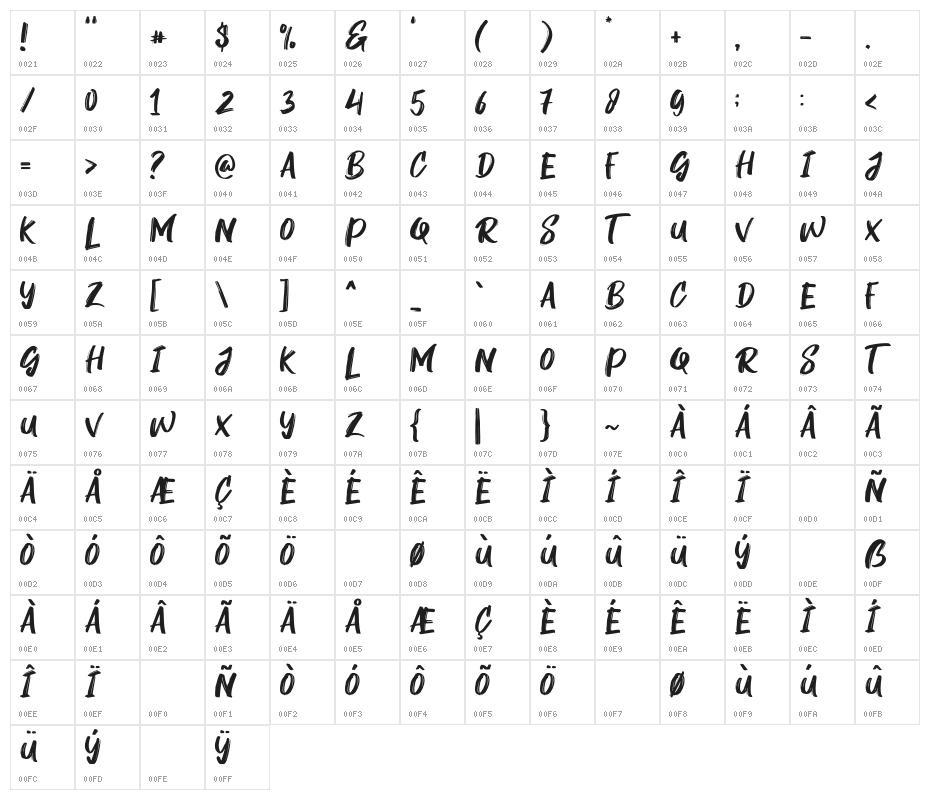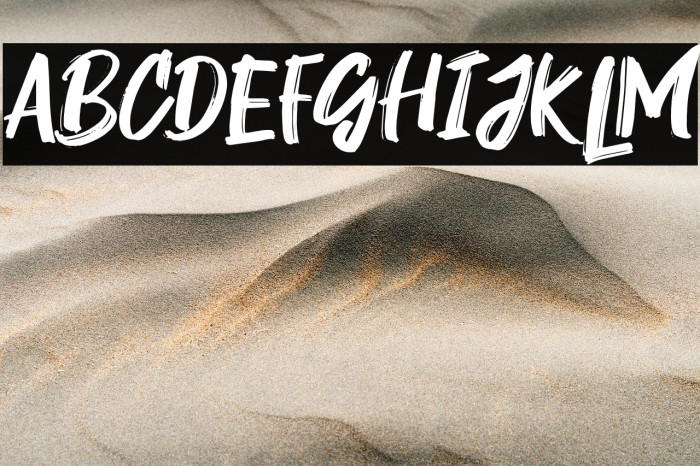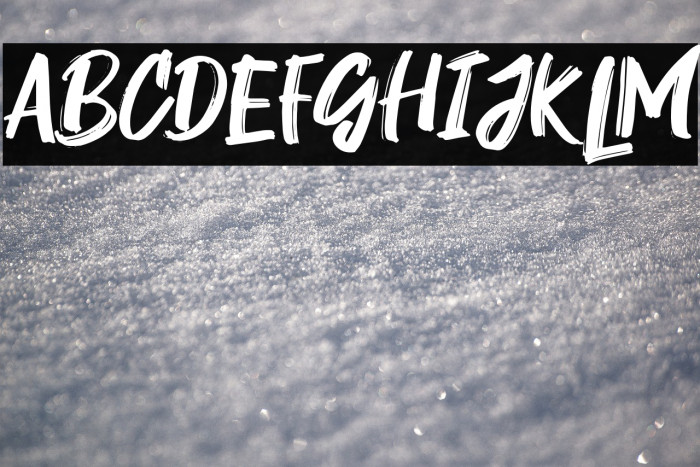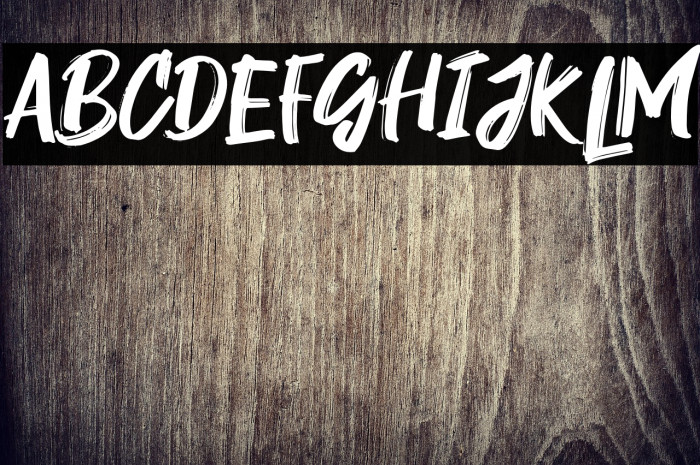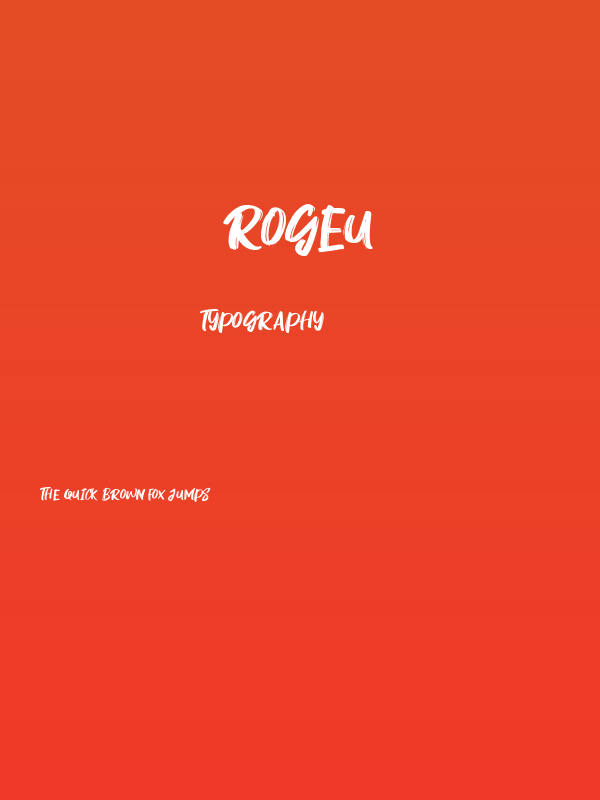
Rogeu Font
Rogeu Description
This font exudes a bold and energetic style, characterized by its brush-like strokes and dynamic flow. The uppercase and lowercase letters maintain a consistent thickness, giving the font a cohesive appearance. The characters are slightly slanted, adding a sense of movement and spontaneity. The numbers and special characters follow the same energetic style, ensuring uniformity across all glyphs. This font's hand-drawn aesthetic makes it ideal for projects that require a personal touch or a creative flair.
| Overall Style | Modern, Artistic |
| Proposed Projects | Perfect for branding, posters, social media graphics, and any project that requires a lively and artistic touch. |